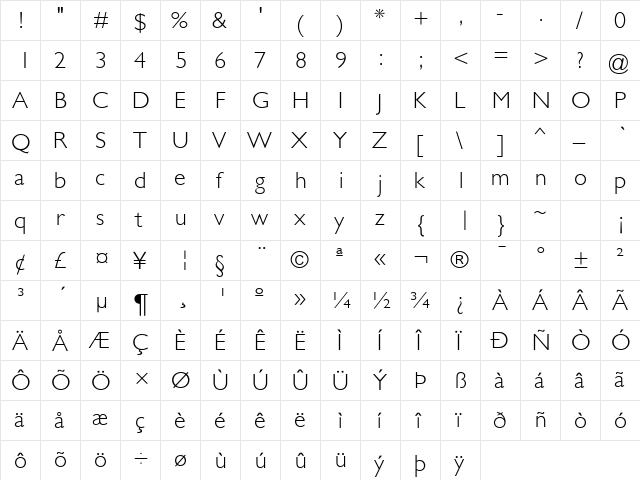
Garrison Light Sans Regular
Design Context for Garrison Light Sans Typeface
Garrison Light Sans offers clean, dependable letterforms without strong stylistic allegiance, making it a practical choice for designers who need flexibility. The delicate stroke weight brings airiness and refinement to layouts.
Pro Tip: Use Garrison Light Sans in both headline and body roles to test its range before committing to a single application.